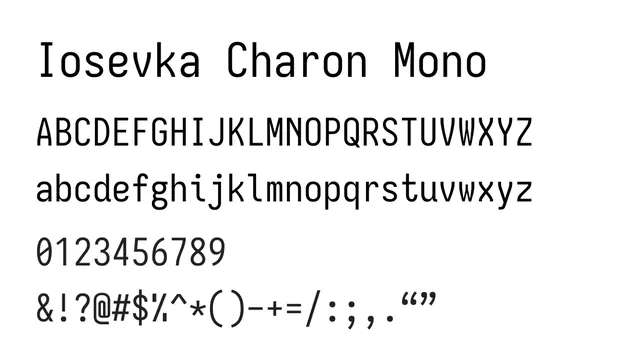
Iosevka Charon Mono
A geometric monospace with squared terminals and extensive language support; optimized for developers and technical environments.
Iosevka Charon Mono is purpose-built for programming environments and technical documentation. Its geometric consistency and comprehensive Unicode support make it ideal for developers working across multiple languages and scripts, with excellent readability in IDE and terminal contexts.
Works with sans-serifs like JetBrains Mono or Fira Sans for tech interfaces; pairs with Source Serif Pro for technical writing that includes code examples.